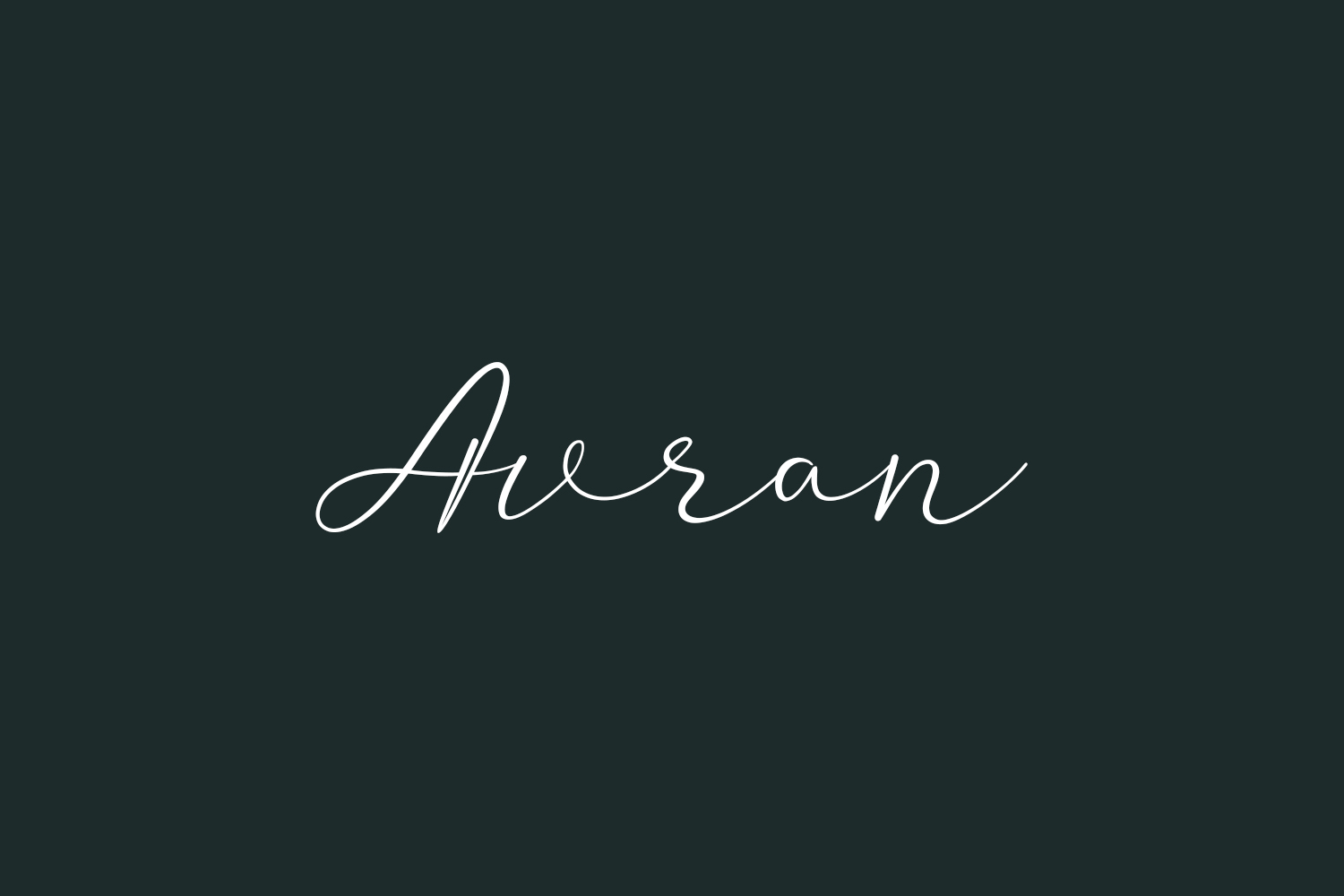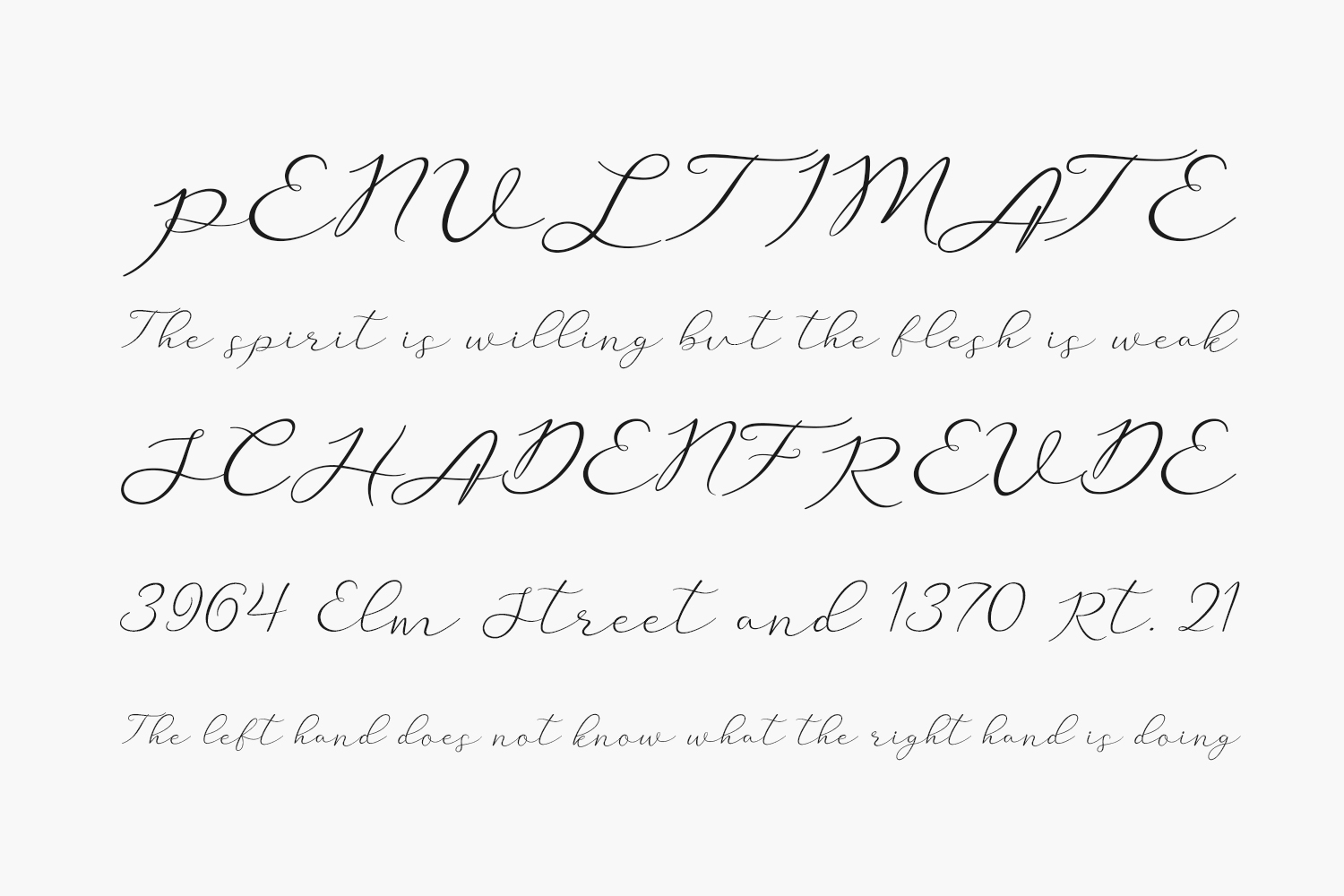
Avran Free Font is a lovely script font featuring charming, playful characters that seem to dance along the baseline. Avran Free Font was designed by Rezastudio and is free for personal use only. Please purchase the full version for commercial use.